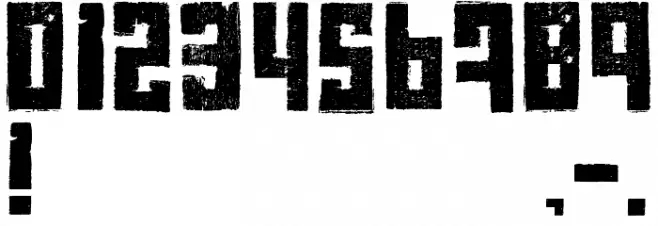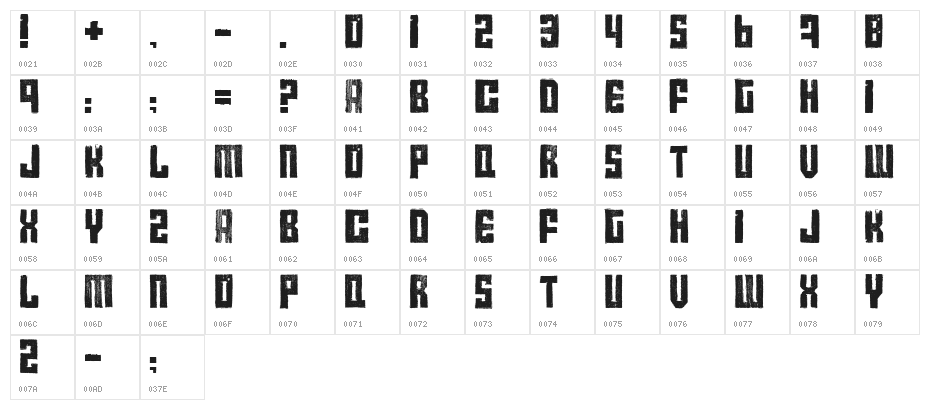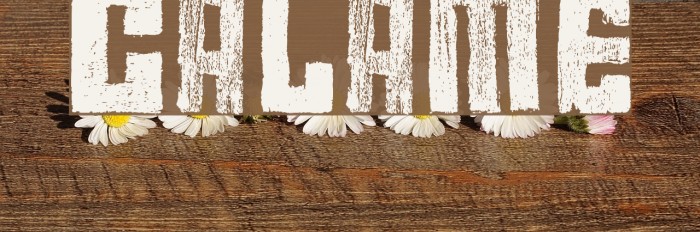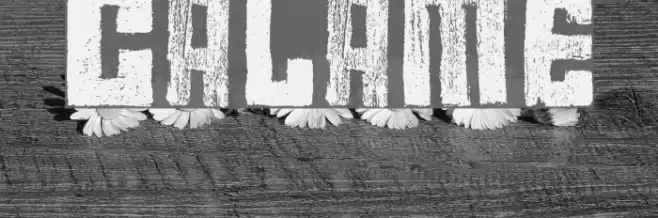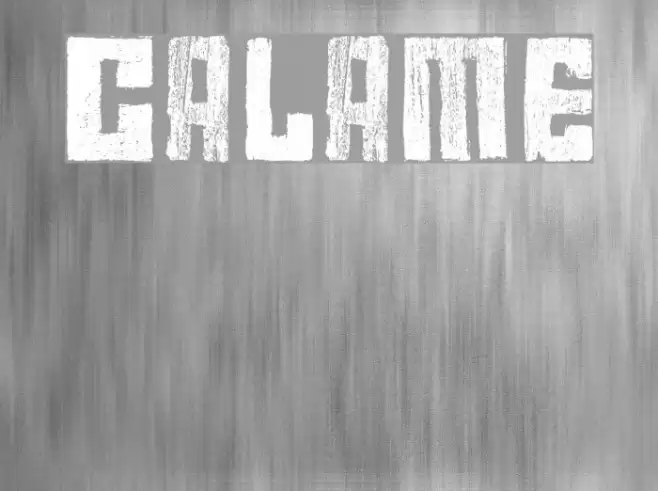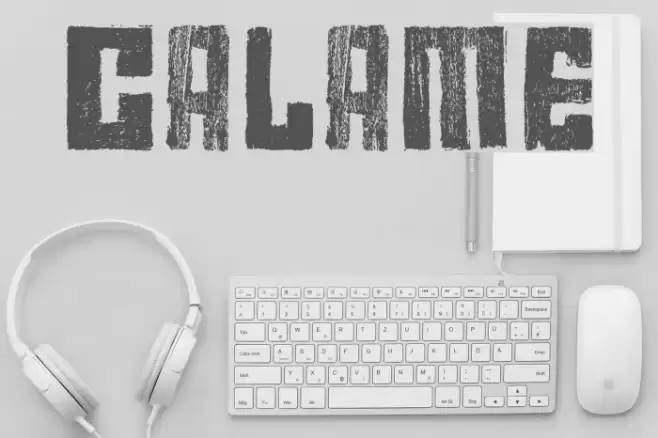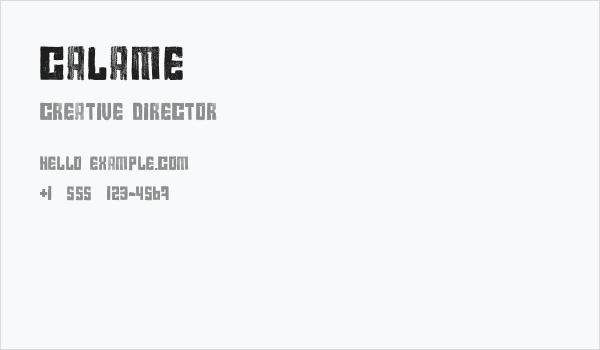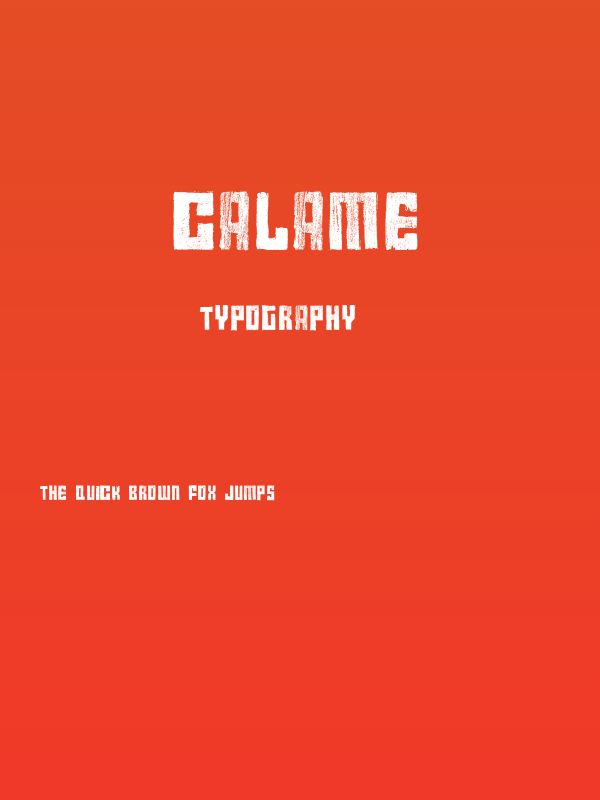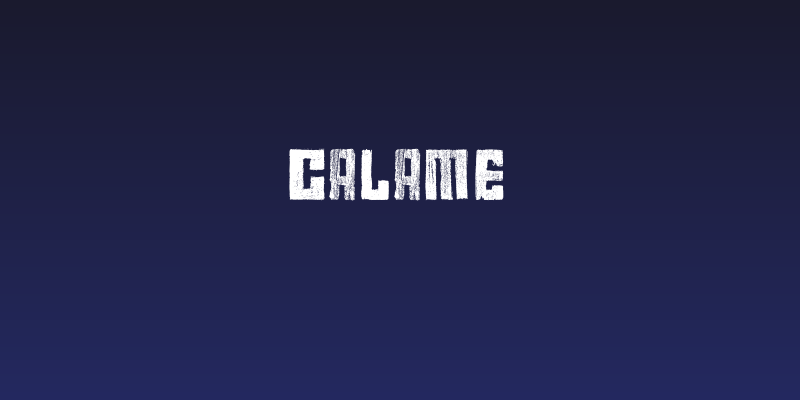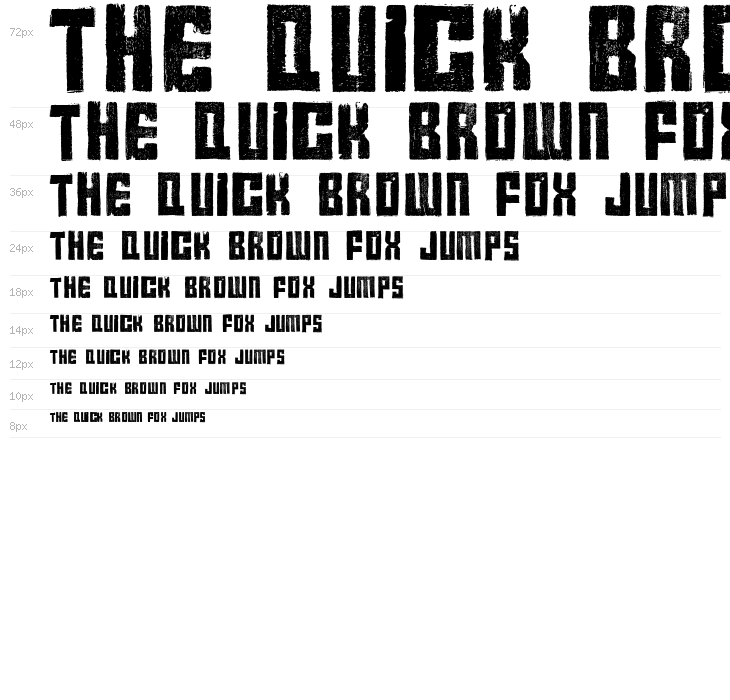
calame Font
This font showcases a bold, distressed style with a rough texture that gives it a gritty, urban feel. The characters are blocky and robust, with a consistent thickness throughout, creating a strong visual impact. The distressed effect adds a sense of age and wear, making it ideal for projects that require a rugged or vintage aesthetic. The uppercase letters are prominent and commanding, while the numbers and special characters maintain the same bold presence. This font is perfect for designs that need to convey strength and edginess, such as posters, album covers, or branding for extreme sports.
| Proposed Projects | Ideal for posters, album covers, branding for extreme sports, or any design needing a rugged look. |